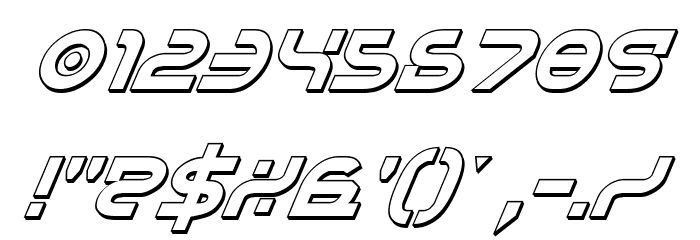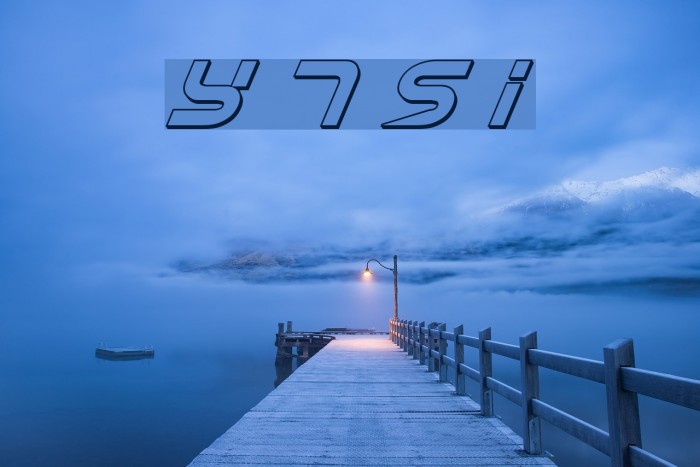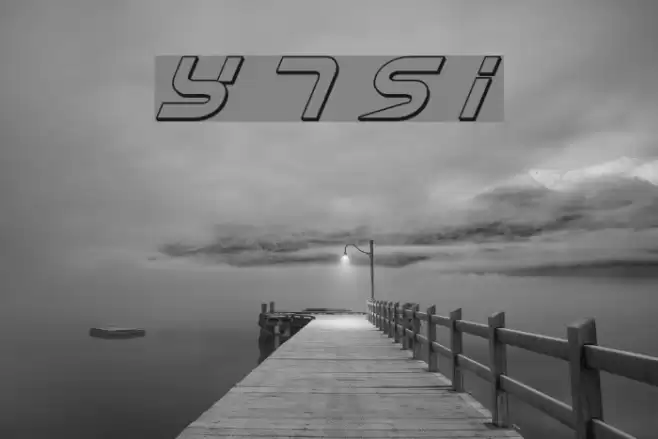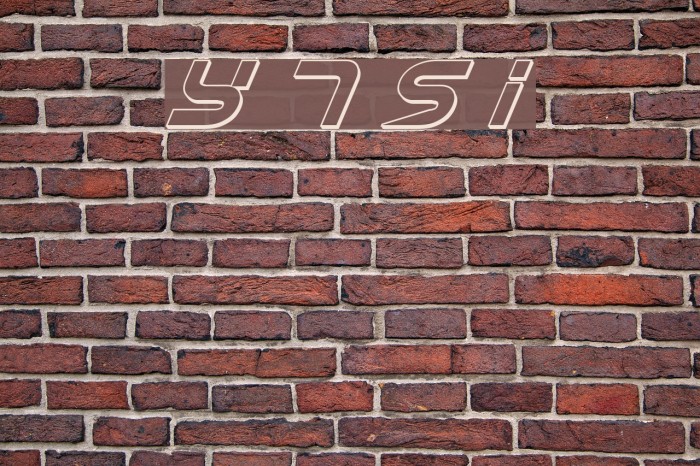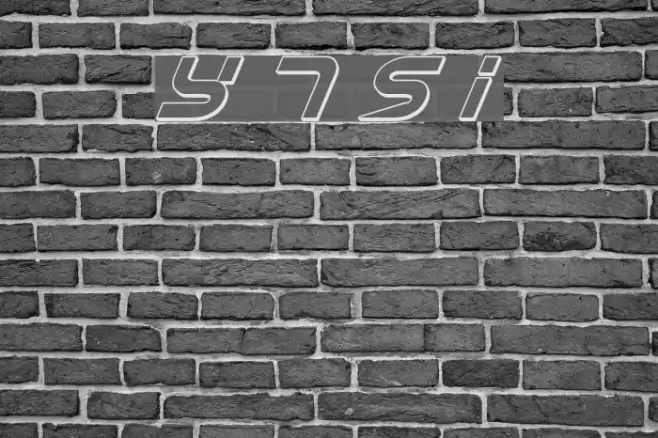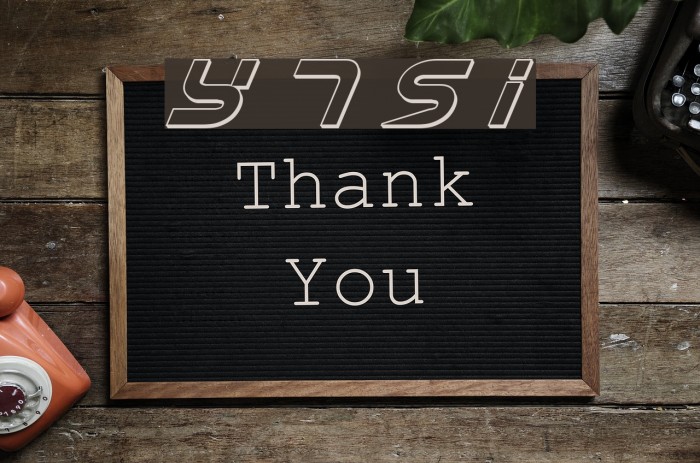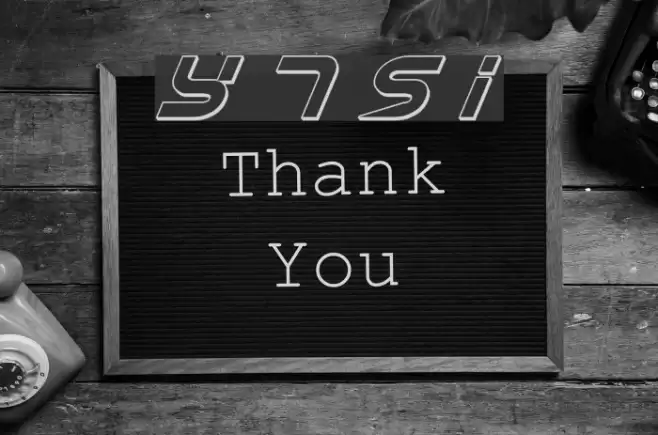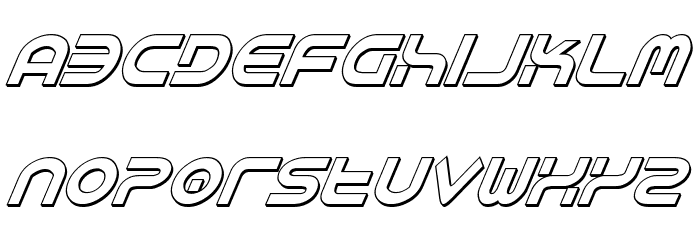
Yukon Tech Shadow Italic Font
Yukon Tech Shadow Italic Description
This font features a futuristic and dynamic design with a shadow effect that gives it a three-dimensional appearance. The characters are italicized, adding a sense of movement and speed. The geometric shapes and sharp angles contribute to its modern and tech-inspired aesthetic. Each letter is outlined, enhancing the shadow effect and providing a bold, eye-catching look. The font maintains consistency across uppercase, lowercase, and numerical characters, with special characters also following the same design principles. This style is particularly suited for projects that require a modern and innovative touch.
| Proposed Projects | Ideal for tech-related branding, futuristic posters, video game titles, and sci-fi themed projects. |